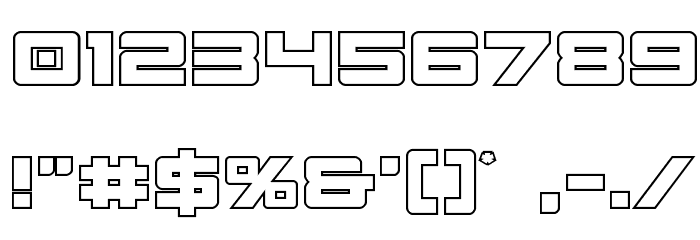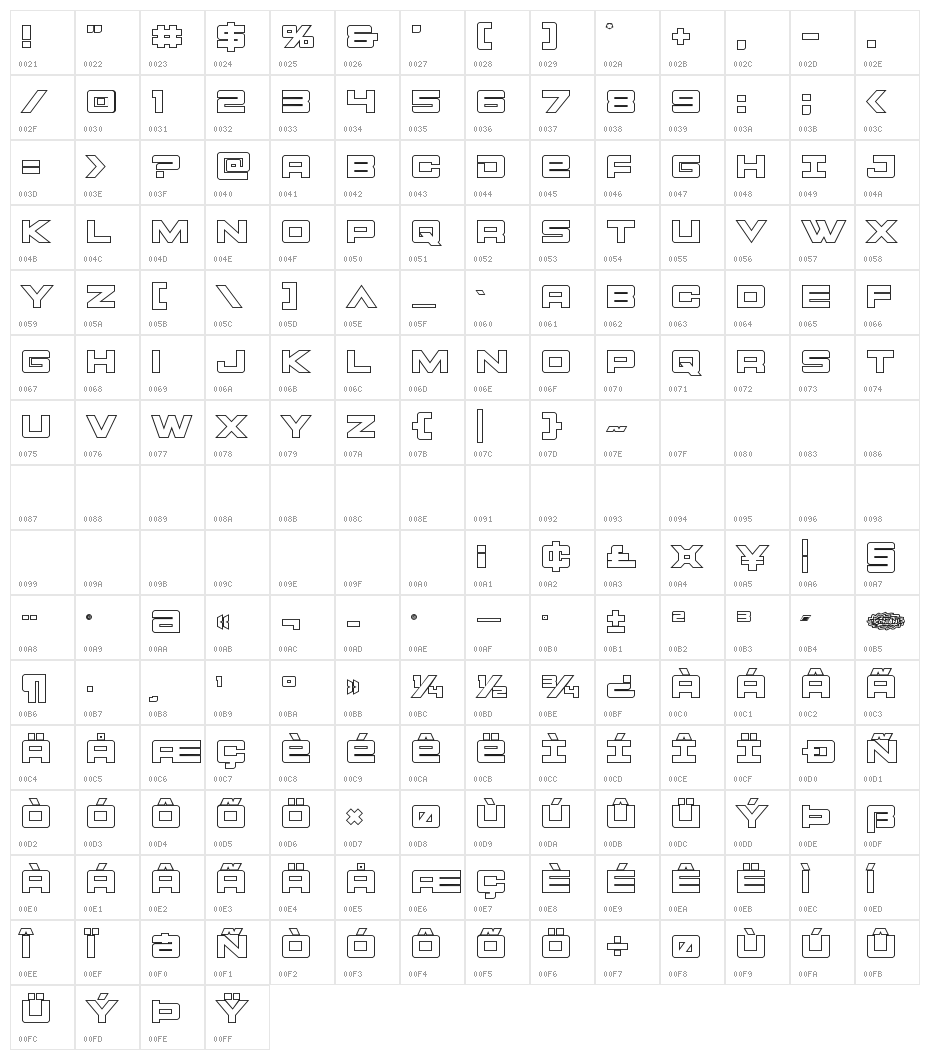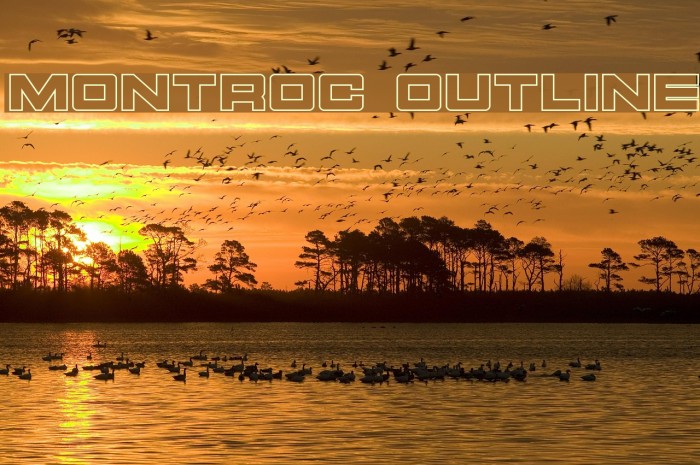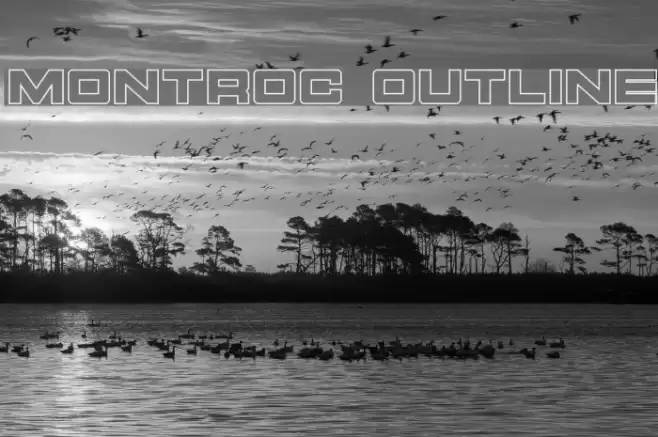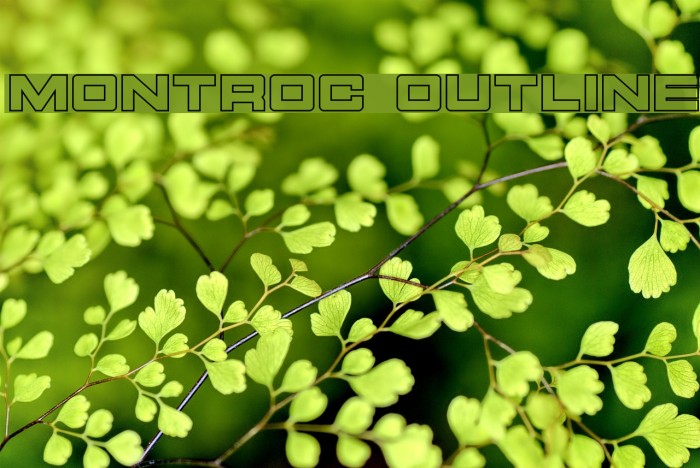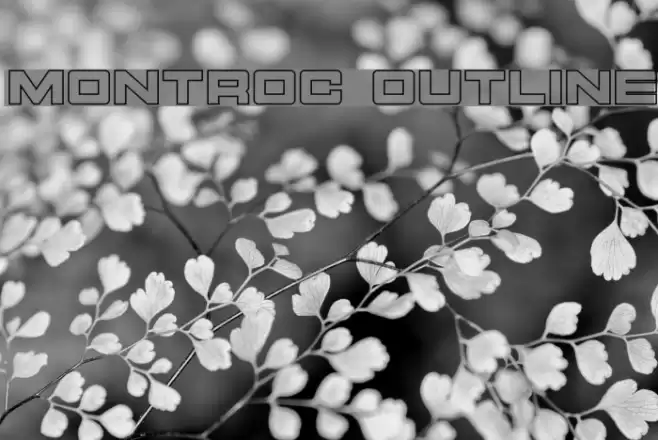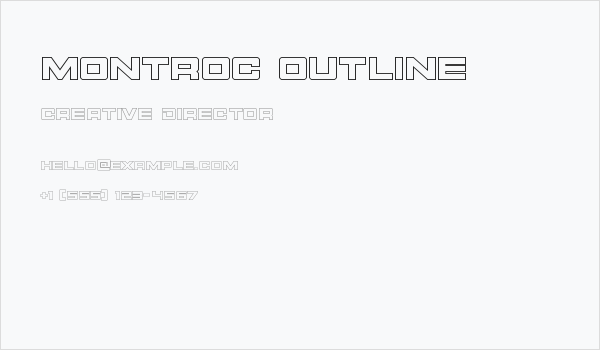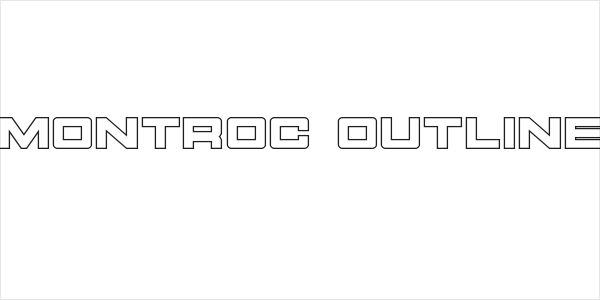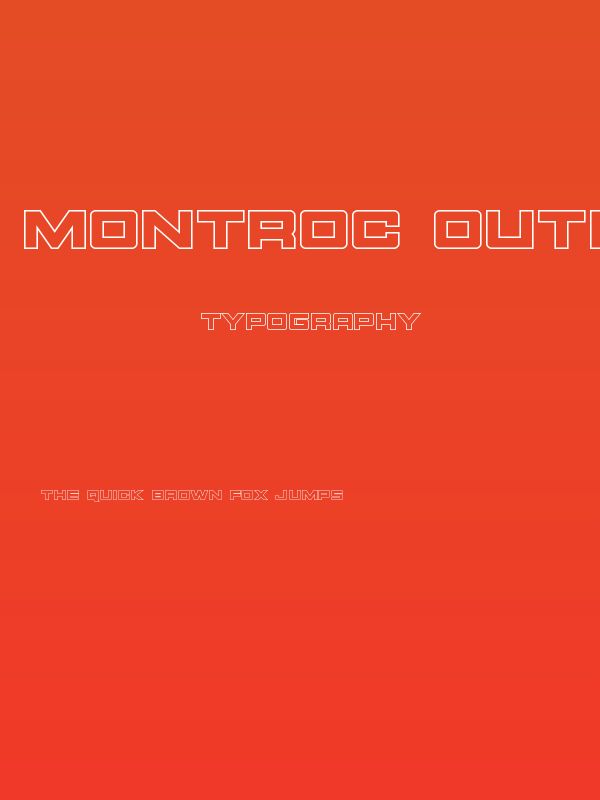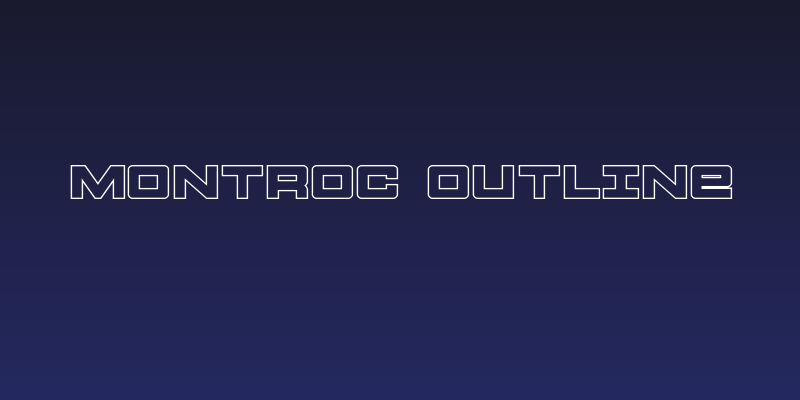
Montroc Outline Font
Montroc Outline Description
This font features a bold, geometric outline style that emphasizes a modern and futuristic aesthetic. The characters are structured with clean, straight lines and sharp angles, creating a sense of precision and clarity. The uppercase letters are uniform in height, while the numbers and special characters maintain a consistent style, ensuring a cohesive look across all text. The outline design adds a unique dimension, making the font stand out for creative and eye-catching projects.
| Proposed Projects | Ideal for branding, posters, headlines, and any design requiring a modern, standout typeface. |